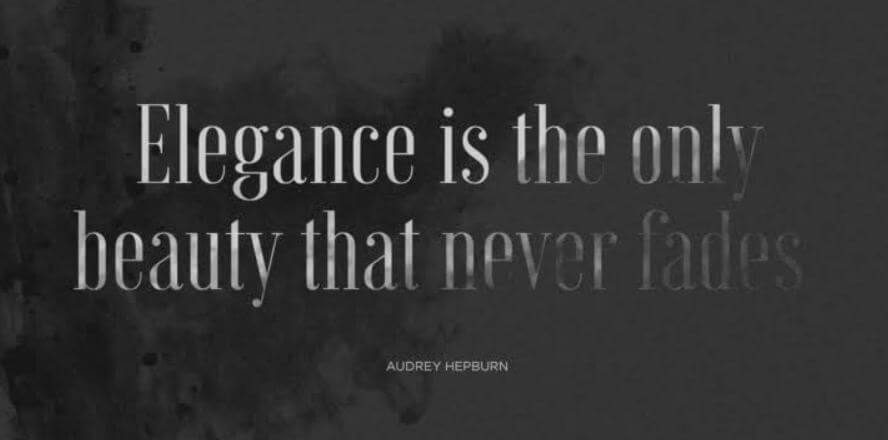
Voga Font Family
Introducing the Voga font family also known as “demo.” Voga is a condensed, modern typeface available in three weights: regular, medium, and bold. In today’s landscape, it can be challenging to find a medium-sized font.
The purpose of this typeface is to create a totally fashionable and “horny” typeface with a few particular letterforms.
Styles Of Voga Font Family